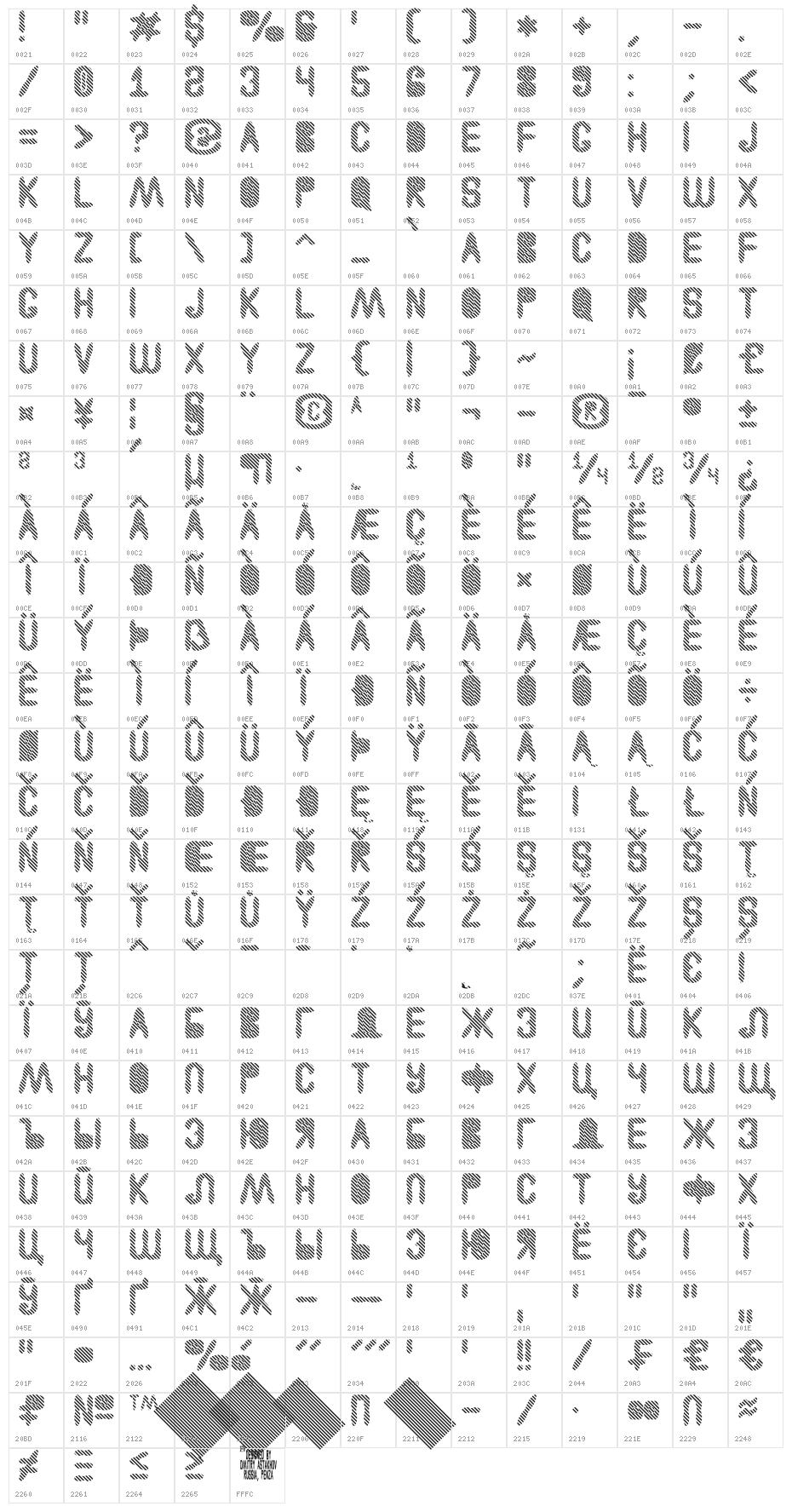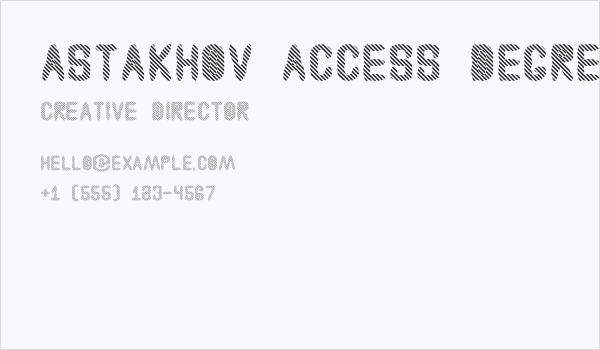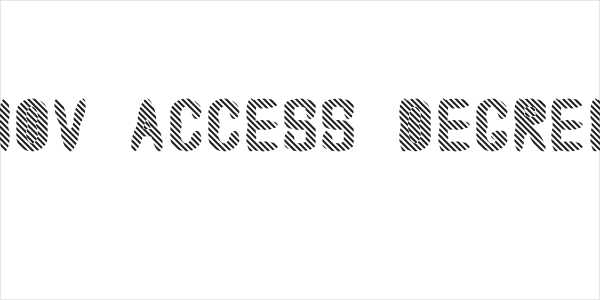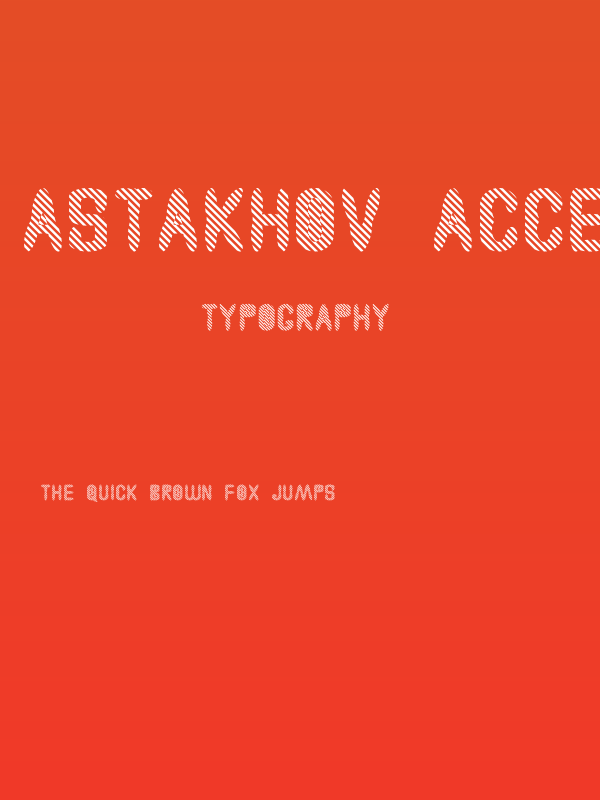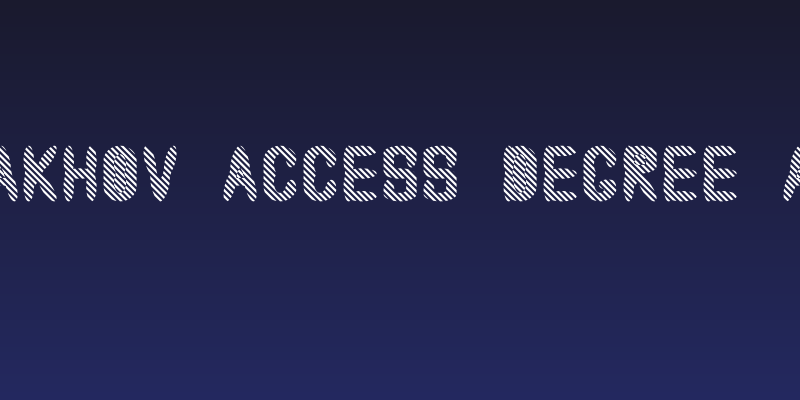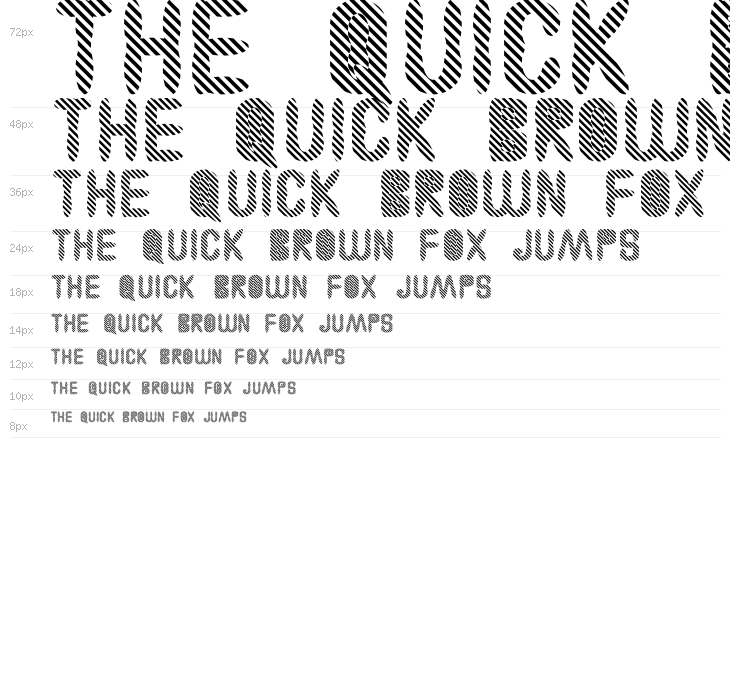
Astakhov Access Degree ADL2 Font
Astakhov Access Degree ADL2 Description
This font features a unique, decorative style characterized by diagonal striped patterns within each character. The uppercase and lowercase letters, as well as numbers and special characters, maintain a consistent design with bold, geometric shapes. The diagonal lines create a sense of movement and texture, making it visually striking and ideal for attention-grabbing designs. The characters are well-proportioned, ensuring readability despite the intricate pattern. This font is perfect for projects that require a modern and edgy aesthetic, combining both artistic flair and functionality.
| Proposed Projects | Ideal for branding, posters, and headlines where a bold statement is needed. |